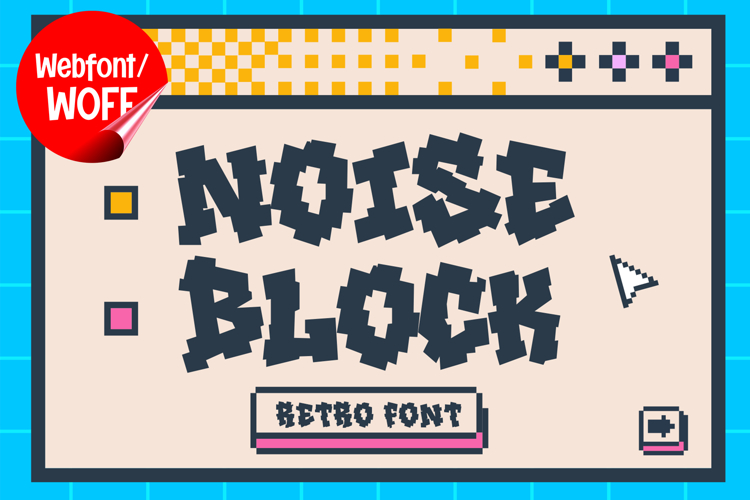
Noise Block | Retro Pixel Graffiti Webfont for Urban Digital
Noise Block is a retro pixel graffiti webfont designed to combine nostalgic digital aesthetics with bold urban expression for modern website design. Inspired by classic pixel art, arcade visuals, and graffiti lettering, this font features blocky shapes with a street-style attitude. It is an excellent choice for projects that aim to blend retro gaming vibes with contemporary urban design.
Noise Block includes a complete set of uppercase characters designed with pixel-based construction and graffiti-inspired forms. The square shapes and grid-like structure create a nostalgic digital feel, while the graffiti influence adds personality and edge. These characteristics make it ideal for headlines, banners, hero sections, and featured content where a bold and unique visual identity is needed.
In addition to letters, the font includes numbers and punctuation, allowing flexible usage across various parts of a website. It works well for gaming websites, tech branding, creative portfolios, promotional content, and event announcements. Each character maintains a consistent pixel graffiti style, ensuring a cohesive and unified visual identity throughout the layout.
With multilingual support, Noise Block includes a wide range of accented characters, making it suitable for international websites and global audiences. This allows content to be displayed clearly across different languages while preserving the retro and urban aesthetic.
The retro pixel graffiti style of Noise Block makes it especially suitable for gaming platforms, digital products, NFT projects, streetwear brands, and creative tech websites. Its blocky and stylized design adds personality and nostalgia, helping websites stand out in competitive digital environments. The pixel structure also enhances visual clarity in bold display settings.
Despite its stylized pixel form, Noise Block is designed with readability in mind. The spacing and proportions are carefully balanced to ensure clarity, particularly in display sizes. This makes it effective for impactful headings and short text elements where both style and usability are important.
Noise Block is a webfont that combines retro pixel aesthetics with graffiti energy and modern web performance. Its blocky shapes, digital structure, and urban character create a